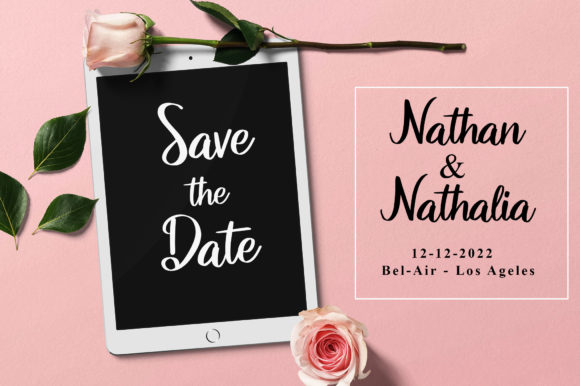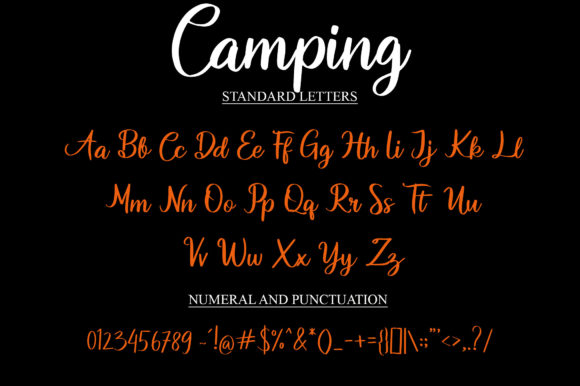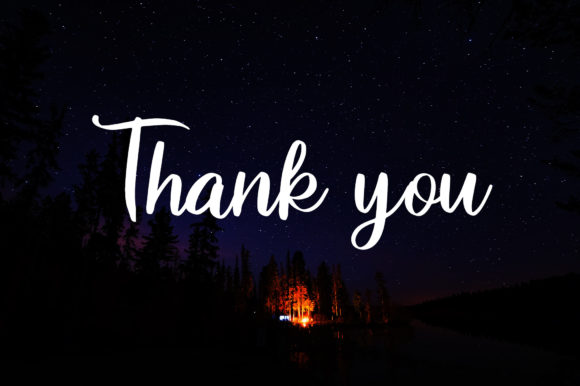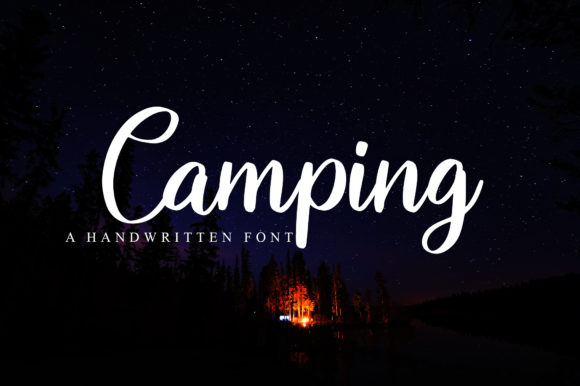
The Great Outdoors, In Your Designs: A Deep Dive into Camping Font
I still remember the project like it was yesterday. I was tasked with creating a logo for a new outdoor gear company, and I was determined to nail it. But as I sat in front of my computer, scrolling through font after font, I just couldn’t find the right fit. That was until I stumbled upon Camping Font. It was love at first sight! The unique, handwritten letters seemed to capture the essence of the great outdoors, and I knew I had found the perfect fit. In this article, I’ll share my experience with Camping Font, and show you how to make the most of this beautiful font in your designs.
An Honest Review of Camping Font
- ✨ Unique and beautiful handwritten letters that add a personal touch to any design
- ✅ Perfect for creating eye-catching logos, branding, and quotes
- 🌟 Excellent for designs that require a natural, outdoorsy feel
- 💻 Highly versatile and works well in various design platforms
While Camping Font is an excellent choice for many designs, there are a few things to keep in mind:
- ⚠️ Some letters may appear a bit inconsistent in terms of spacing, which can affect the overall flow of the text
- 🤔 Limited availability of stylistic alternates, which may limit creative options
The Story Behind Camping Font
Camping Font was designed with the great outdoors in mind. The creator, a passionate typographer and outdoor enthusiast, wanted to capture the essence of nature in a font. Inspired by vintage camping signs and handwritten notes from outdoor adventures, Camping Font was born. With its unique, handwritten letters, this font is perfect for designs that require a natural, outdoorsy feel.
| Font Name | Camping Font |
| Author | feetype |
Q: What type of designs is Camping Font best suited for?
A: Camping Font is perfect for creating eye-catching logos, branding, and quotes that require a natural, outdoorsy feel.
Q: Is Camping Font available in different weights or styles?
A: Currently, Camping Font is available in a single weight. However, the creator may release additional weights or styles in the future.